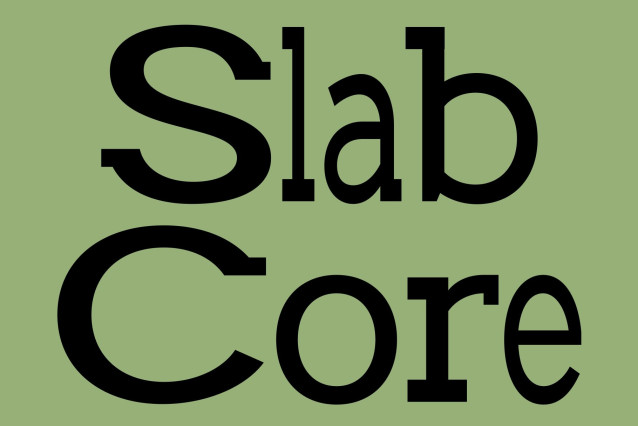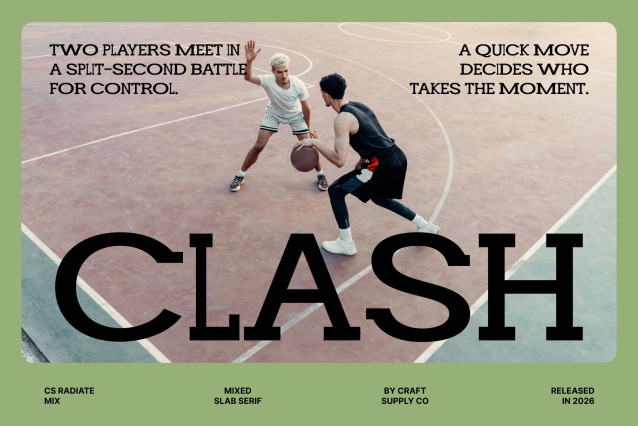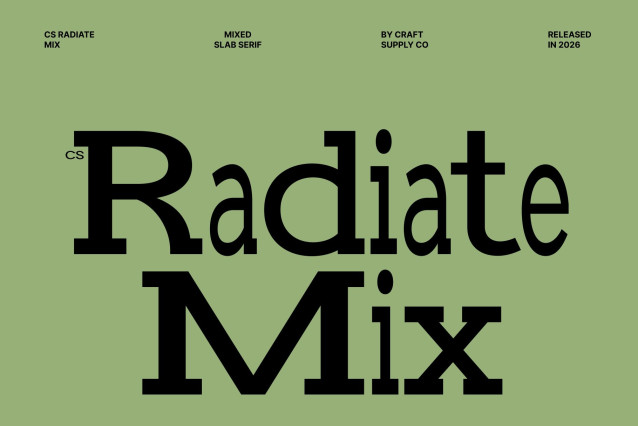
CS Radiate Mix Font
CS Radiate Mix – Bold Slab Serif Font: Powerful Structure with Contemporary Confidence
Bold Slab Serif with Mixed Style Character
This is a bold slab serif font designed to express strength, authority, and modern visual impact. Built with thick serifs, geometric proportions, and a commanding structure, this typeface introduces a distinctive mixed-style concept that adds rhythm and contrast to every composition. It transforms bold typography into a dynamic visual element that feels sturdy, modern, and highly professional.
A Strong Blend of Bold and Regular Letterforms
The defining character of this font lies in its creative fusion of bold and regular styles. This mixed-weight approach creates visual hierarchy and energetic flow, allowing typography to appear more expressive while maintaining balance and readability. The contrast between heavy strokes and structured forms enhances both impact and sophistication across headlines and branding materials.